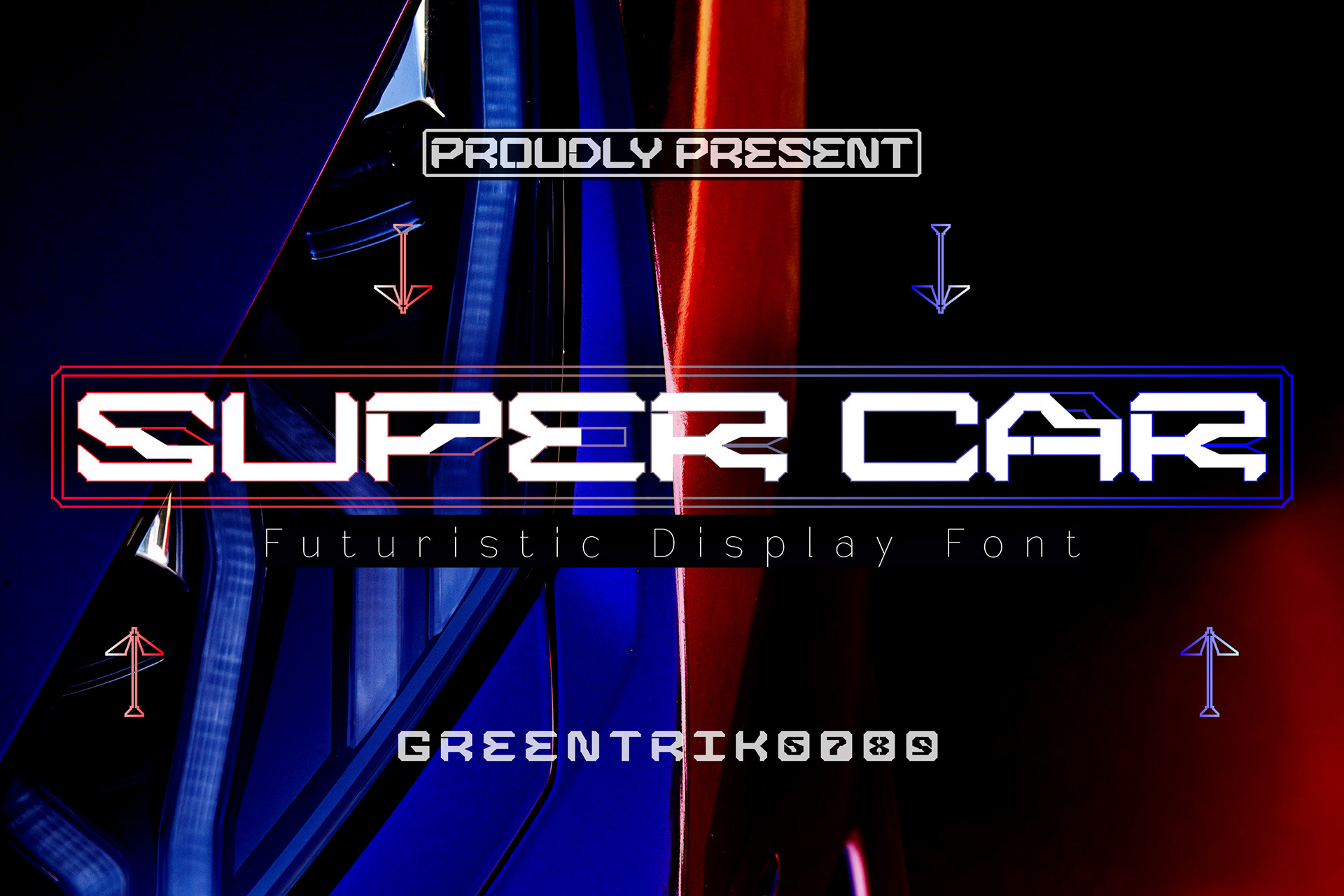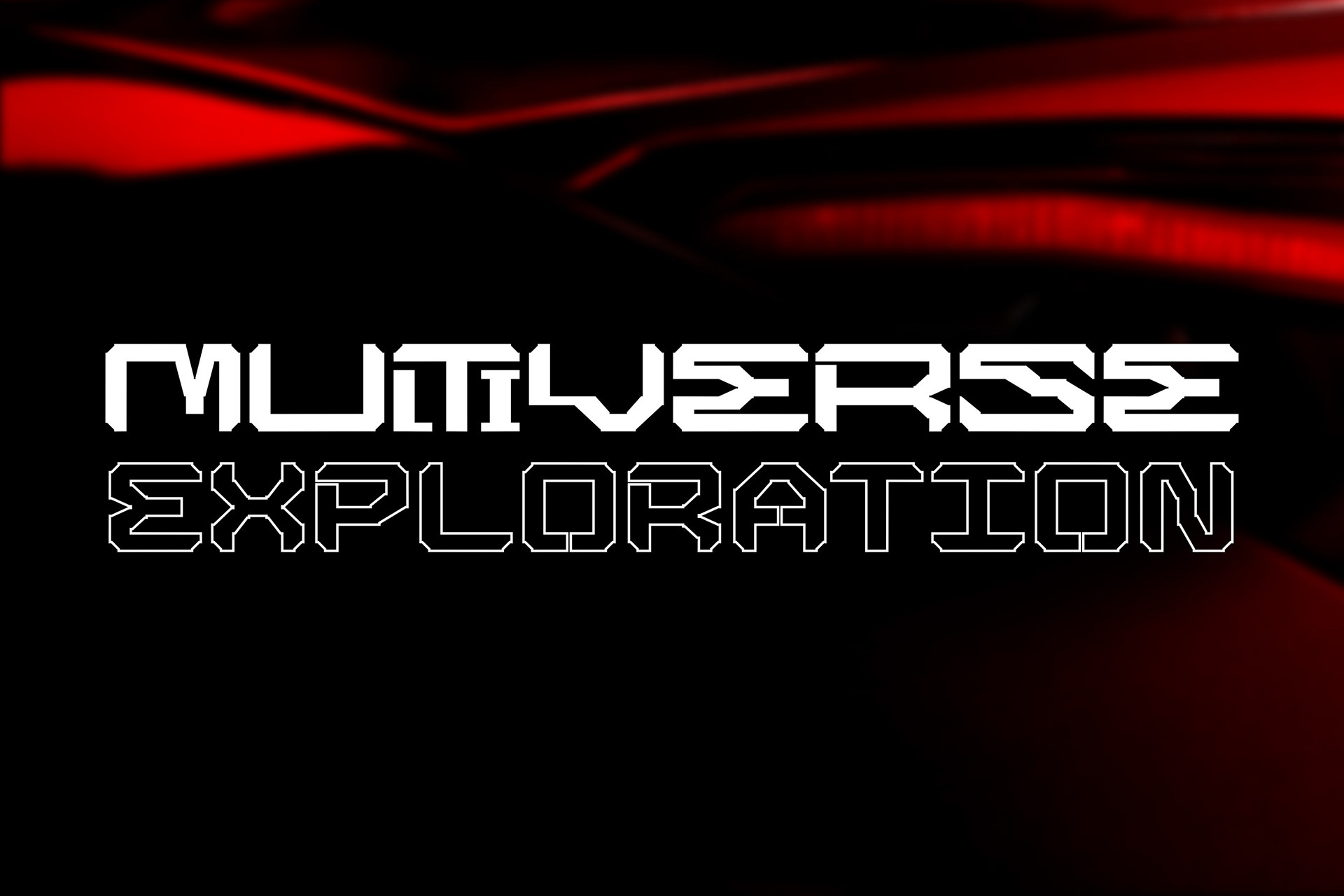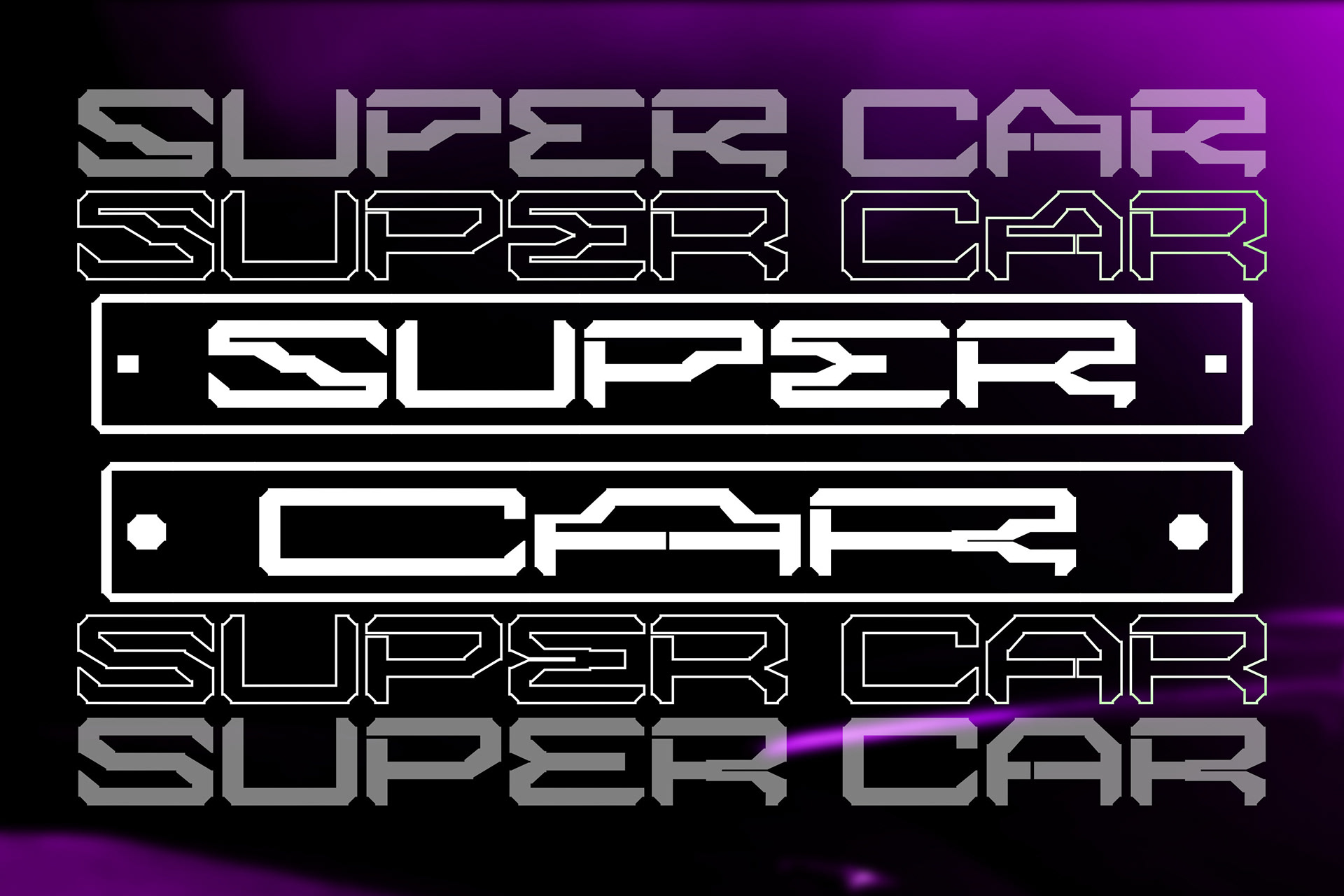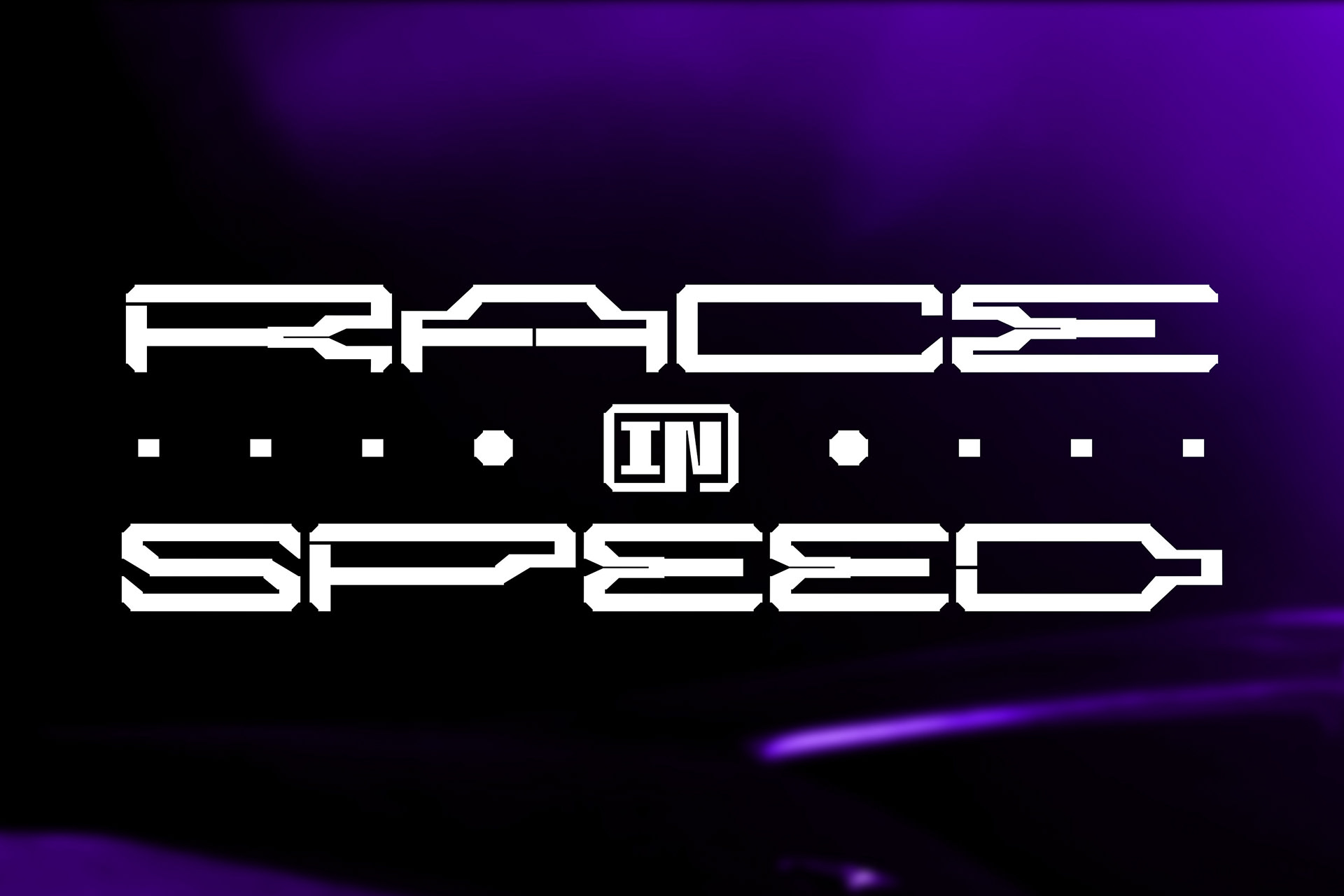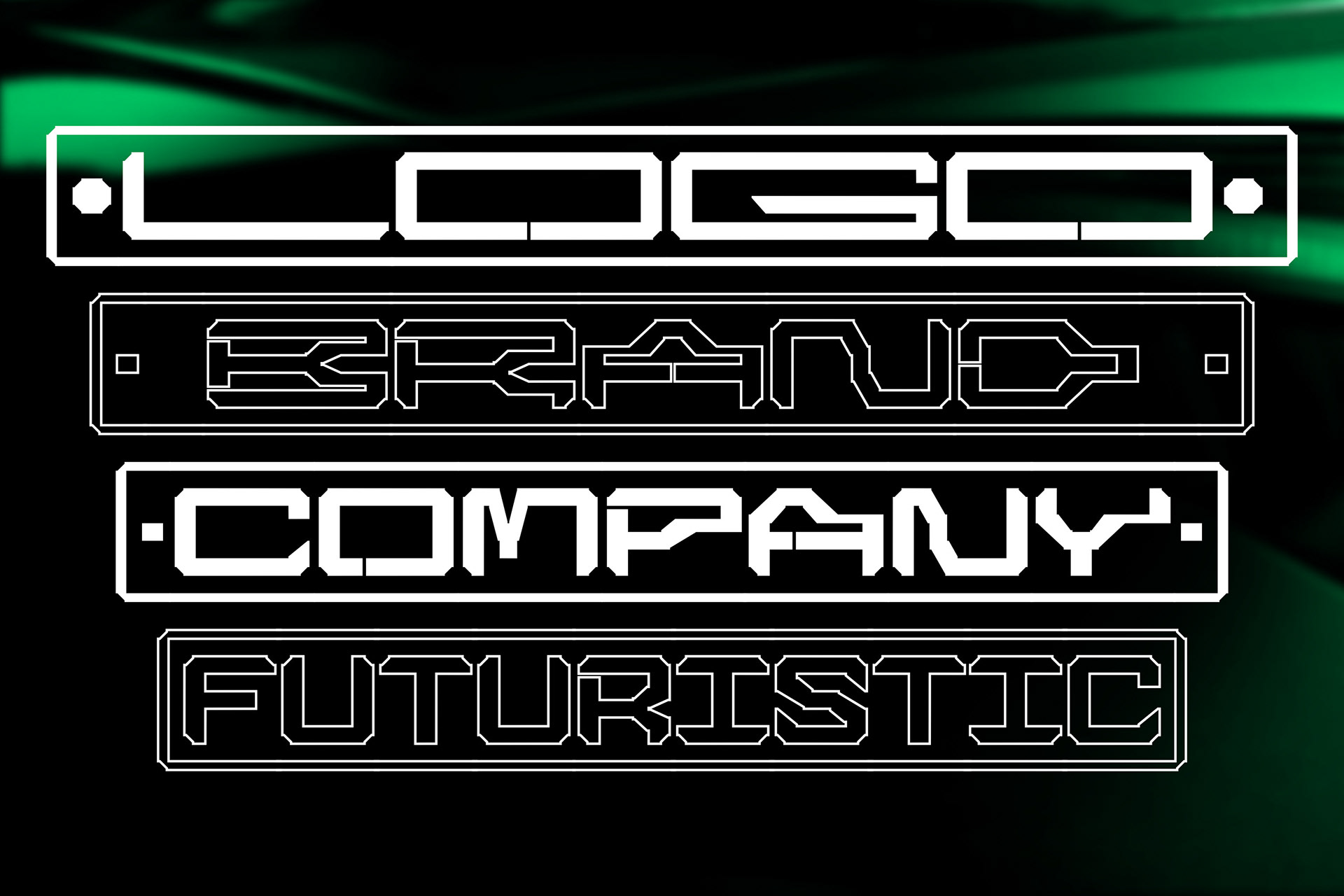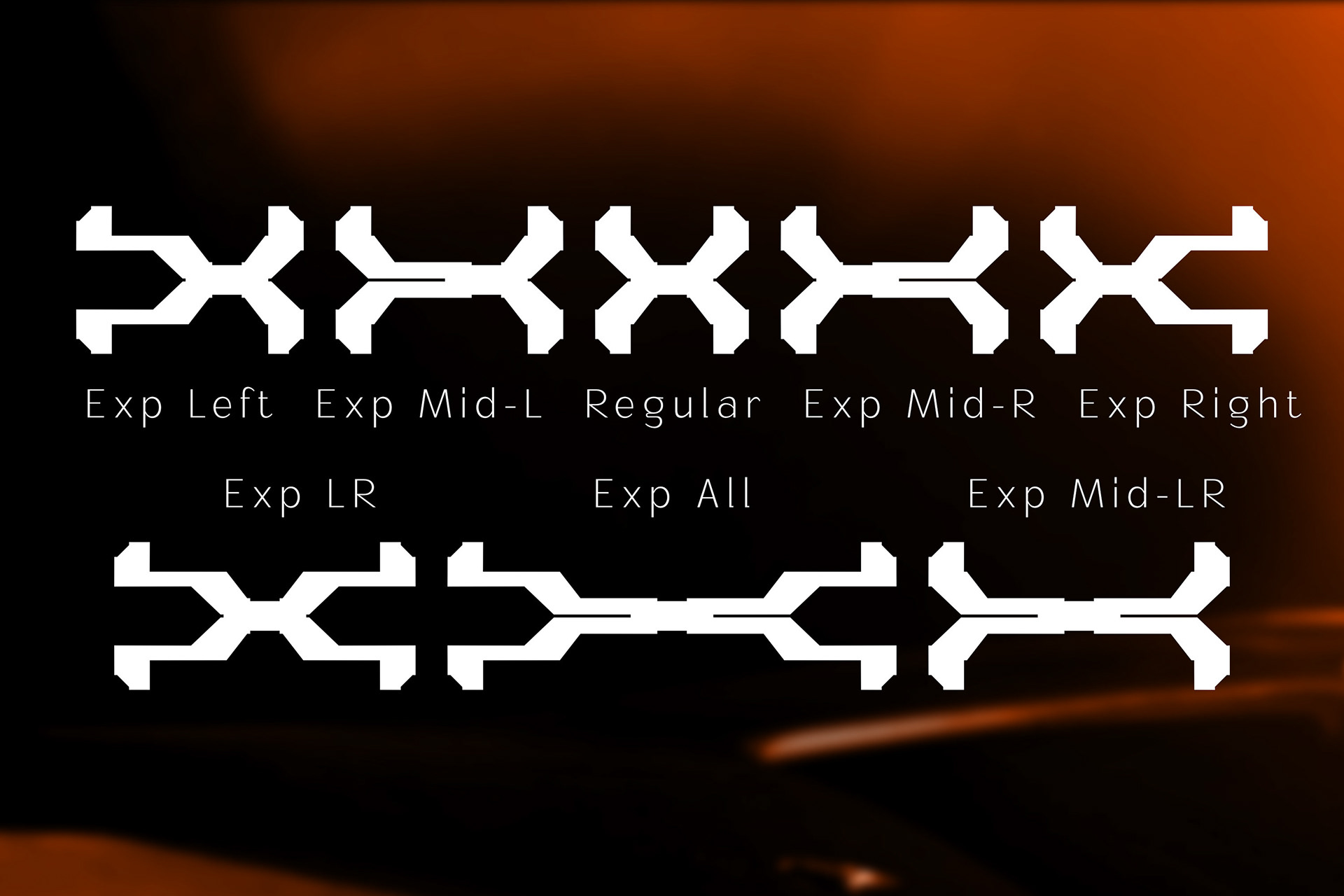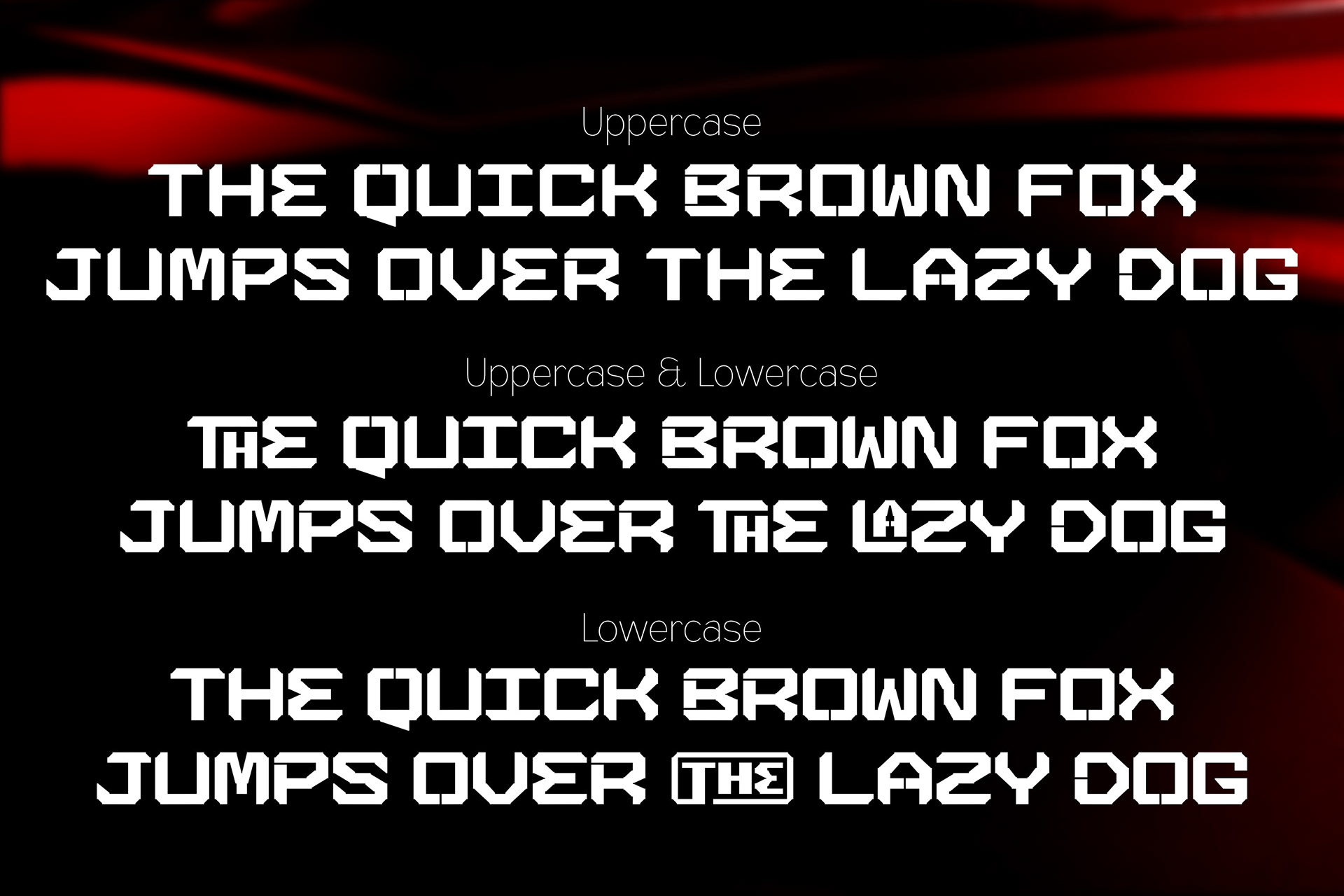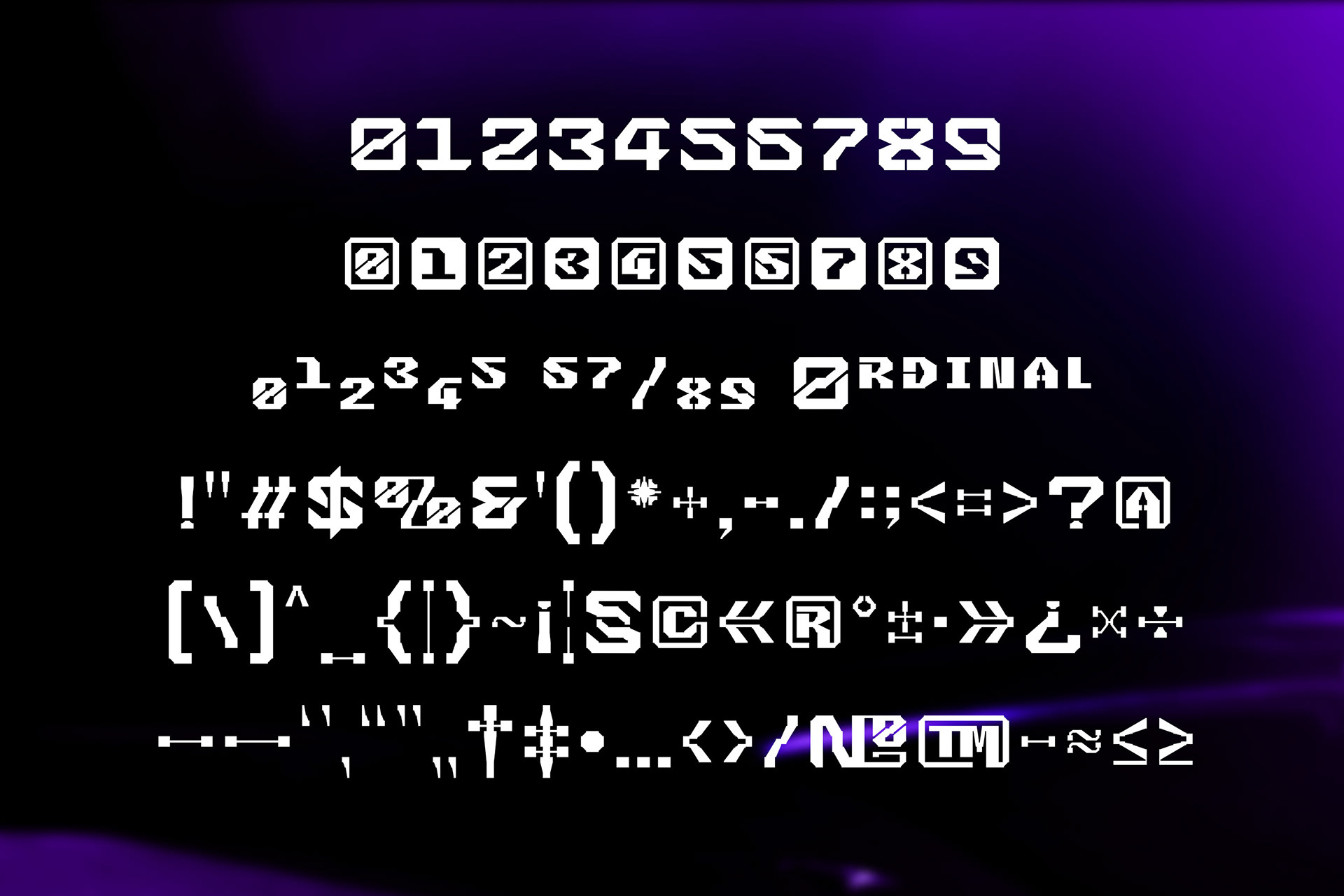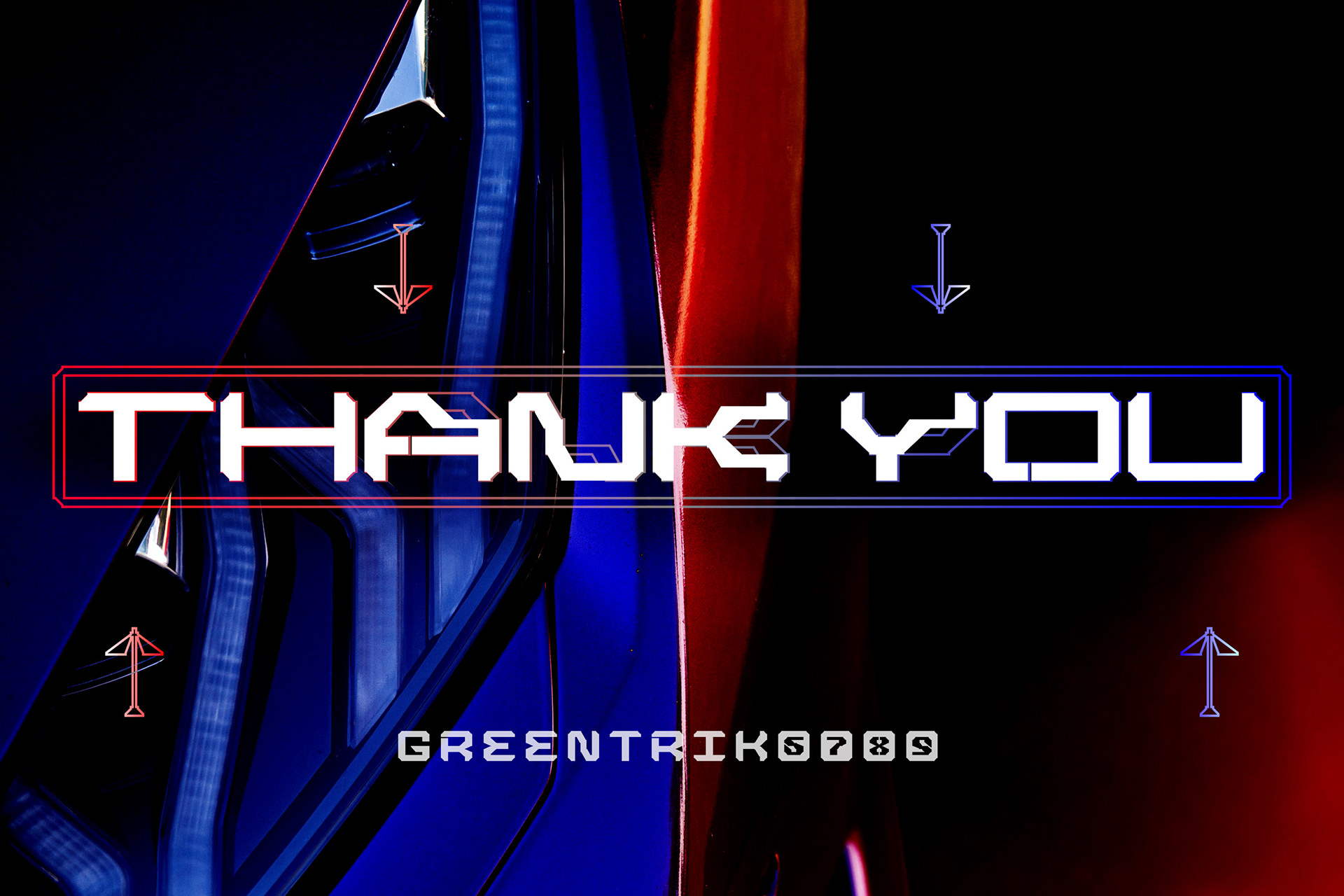
Super Car is a modern display font that grabs a lot of attention in a crowd.
This font comes with various futuristic styles and alternative characters that you can use for your various display needs.
Super Car is perfect for display needs such as Logos, Labels, Posters, Covers, Advertising and various needs with futuristic themes